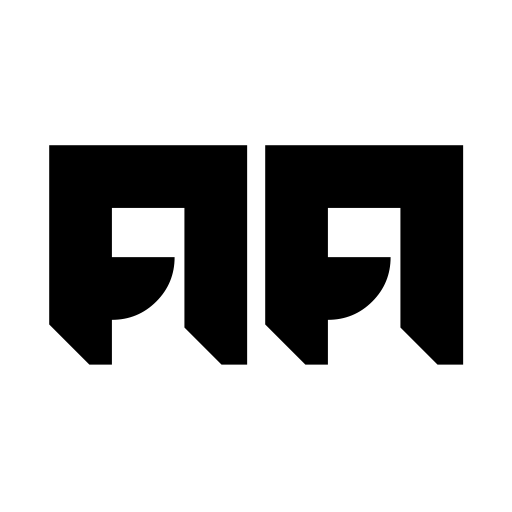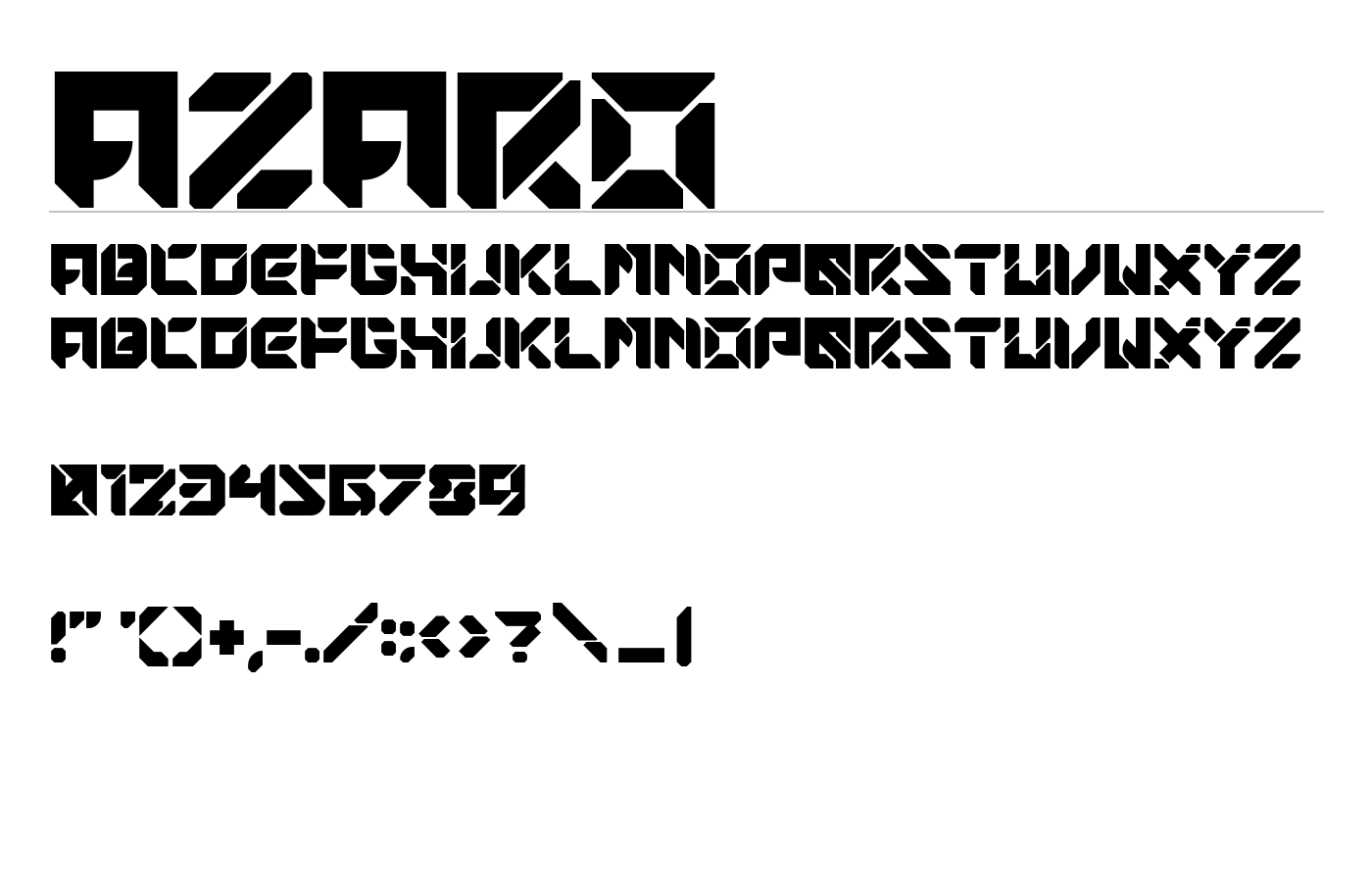
Azaro is a bold, geometric, sans serif font with a distinctly futuristic and angular style. Its strong, blocky shapes and high contrast between solid and cut-out sections create a modern, tech-inspired look that works well for striking headlines, logos, and branding aimed at a cutting-edge or digital audience. This font’s unique design makes it ideal for projects that want to convey innovation, strength, and a contemporary edge.
AZARO Font